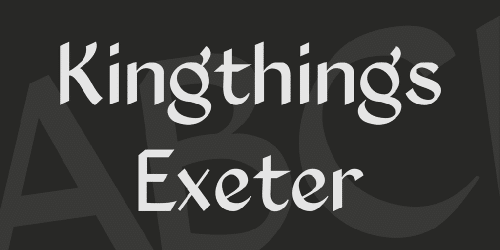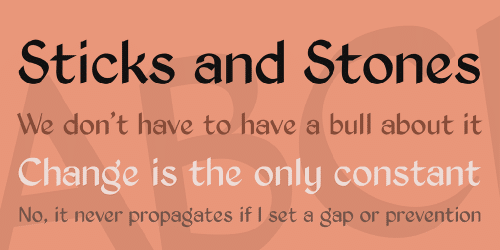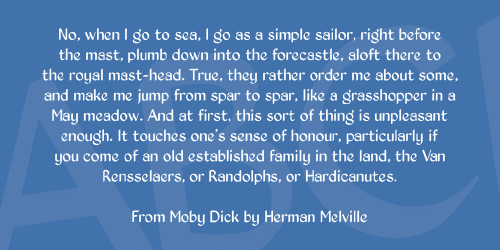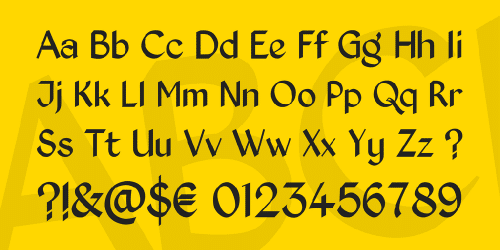
I wanted to make a really simple pen built font with no serifs, as usual, the simpler the font, the more work it took to get it right. It’s named for where I live, it was about time.